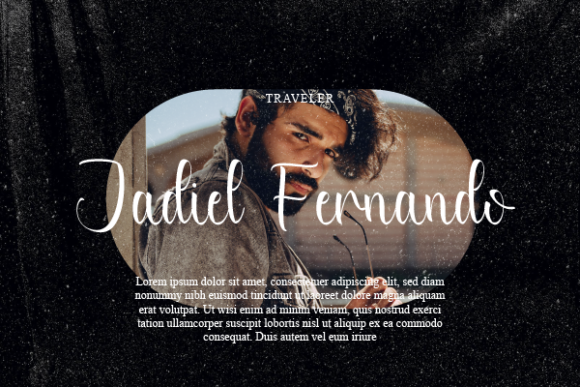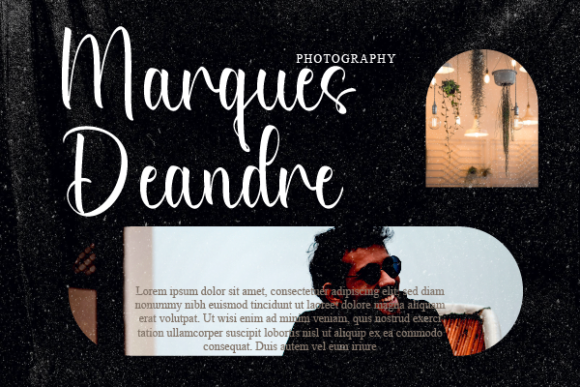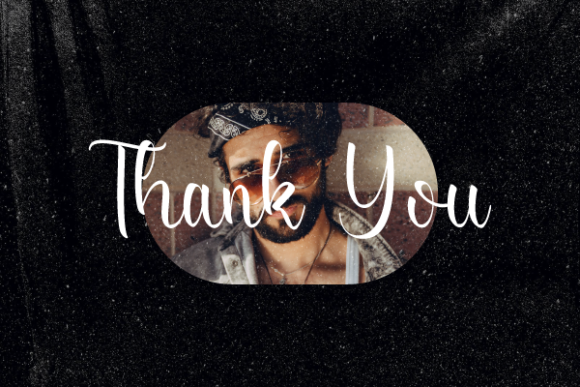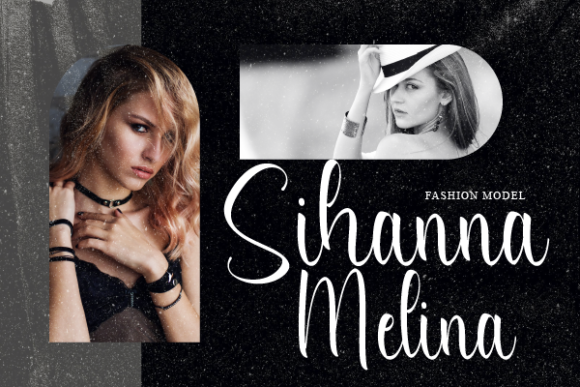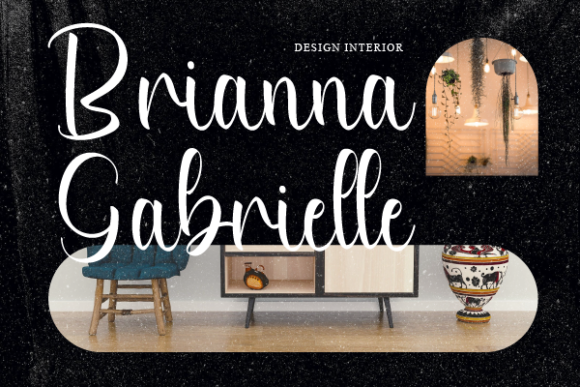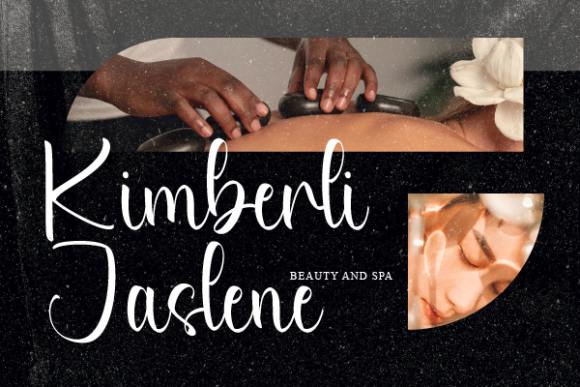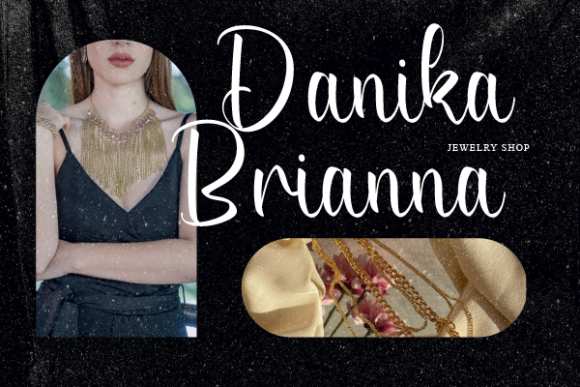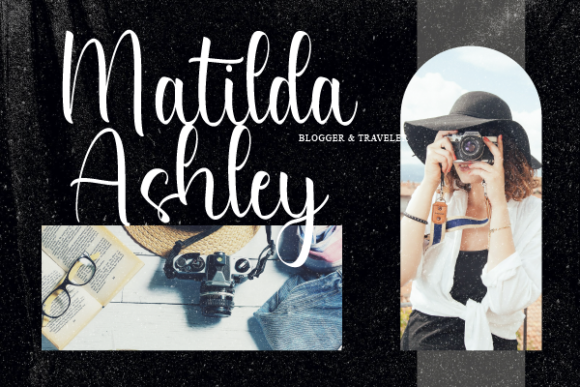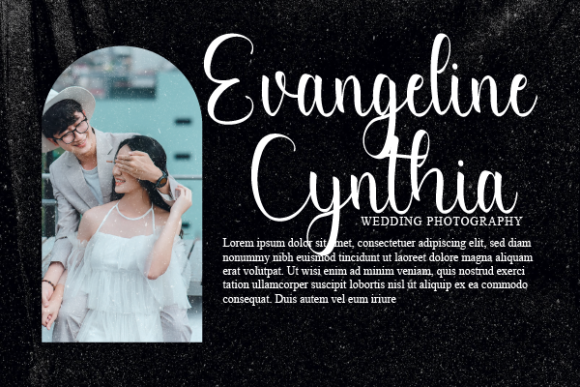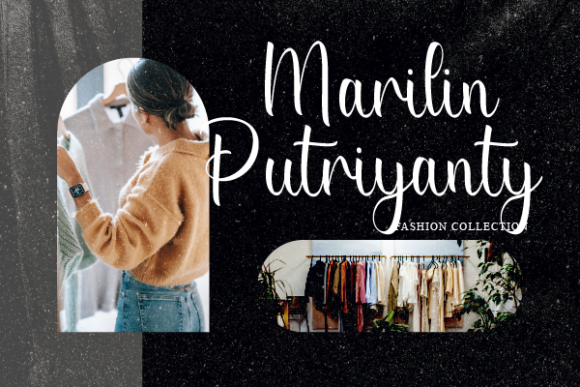
Batchelor Charlene Font
About Batchelor Charlene Font
“Batchelor Charlene” emerges as a delicate and elegant handwritten font that exudes a sense of sophistication. The font’s distinct and well-balanced letters contribute to its status as a true masterpiece. Its versatility shines through, making it a font that you can truly fall in love with, thanks to its ability to create spectacular and captivating designs.
The allure of “Batchelor Charlene” lies in its capacity to convey a touch of elegance and refinement through its meticulously designed letters. The balanced strokes and intricate details contribute to an aesthetic that resonates with charm and visual appeal. This font seamlessly adapts to various design contexts.
Whether you’re aiming to create stunning visuals for branding materials, logos, invitations, or other creative projects, “Batchelor Charlene” becomes a reliable and indispensable tool. Its unique design can elevate the visual impact of your projects, making them stand out with a touch of timeless elegance.
Incorporating “Batchelor Charlene” into your design endeavors means embracing its delicate and elegant attributes. By utilizing its unique charm, you’re enhancing the visual allure of your work and ensuring that your designs resonate effectively with your intended audience. This font becomes a versatile instrument for infusing your creations with sophistication and a touch of refined elegance, enabling you to craft truly spectacular designs that leave a lasting impression.